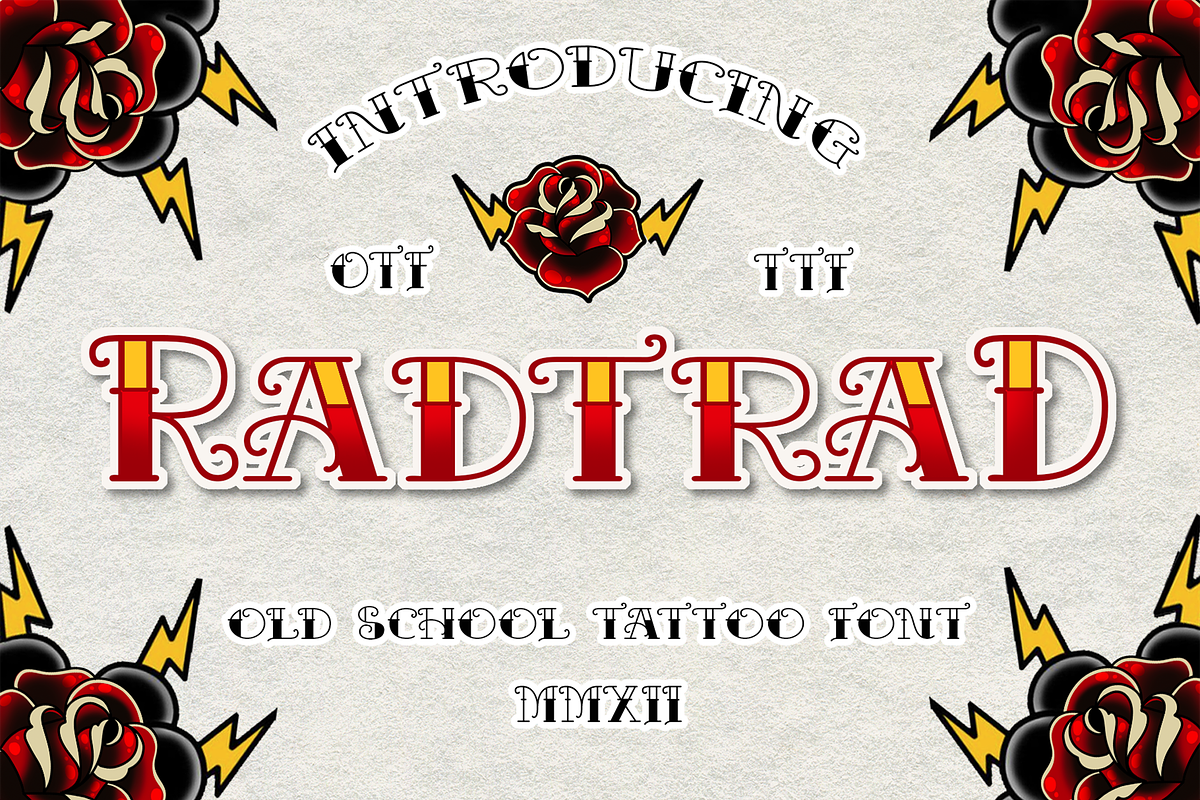
Radtrad Classic Tattoo Font Free Download is a bold and edgy typeface inspired by traditional tattoo lettering. Featuring thick, clean lines and a vintage aesthetic, this font is perfect for creating bold, eye-catching designs such as tattoo art, retro logos, branding, posters, and any project that needs an authentic, old-school tattoo style.
The Radtrad Classic Tattoo Font captures the essence of classic tattoo culture, making it ideal for designs that want to evoke a sense of rebellion, tradition, and style. Its timeless appeal works well in both modern and vintage-inspired designs.